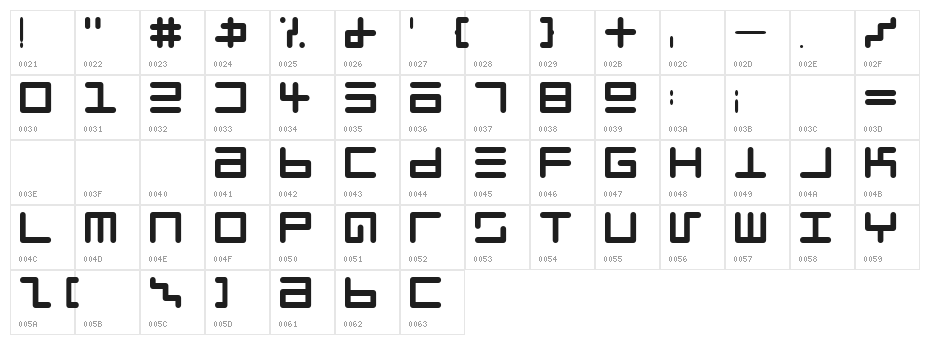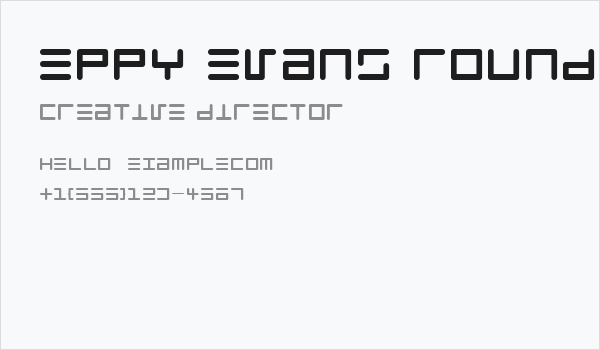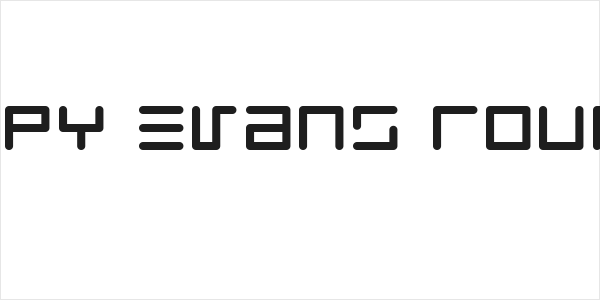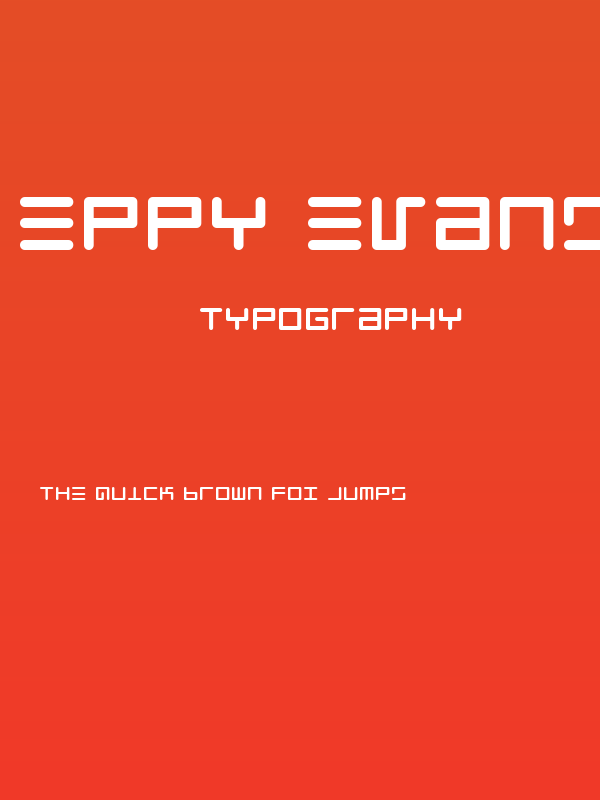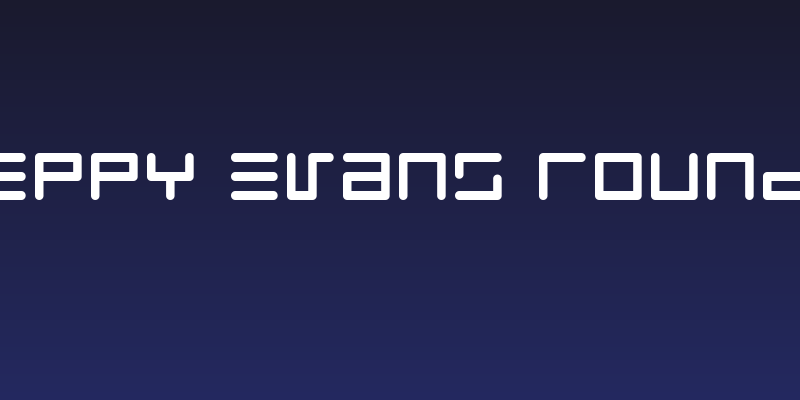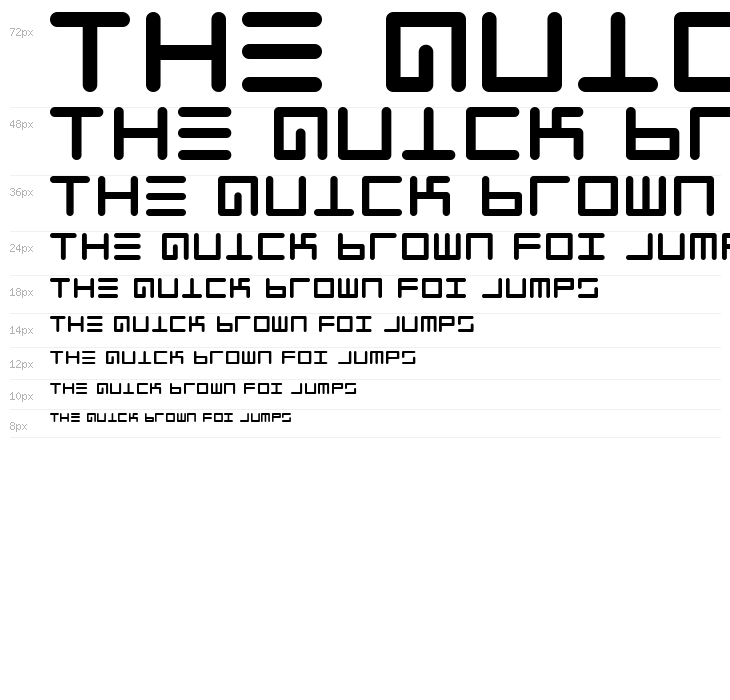
Eppy Evans Round Font
Eppy Evans Round Description
This font features a modern, geometric design with rounded edges, giving it a futuristic and digital appearance. The characters are constructed with consistent stroke widths, creating a uniform and balanced look. The uppercase and lowercase letters maintain a similar height, enhancing readability and cohesion. The numerals and special characters follow the same design principles, ensuring a seamless integration across different uses. Its distinct style makes it suitable for projects that require a contemporary and tech-savvy aesthetic.
| Use Case | Logos, Headlines, Digital interfaces |
| Proposed Projects | Ideal for tech branding, digital interfaces, futuristic posters, and modern graphic design projects. |